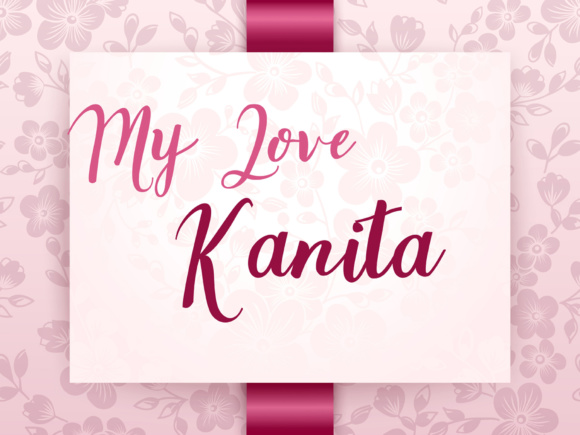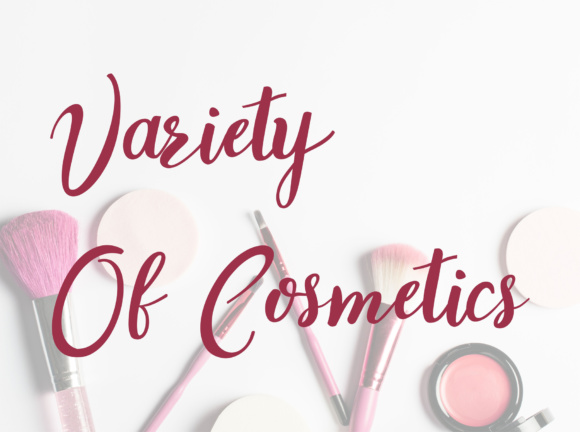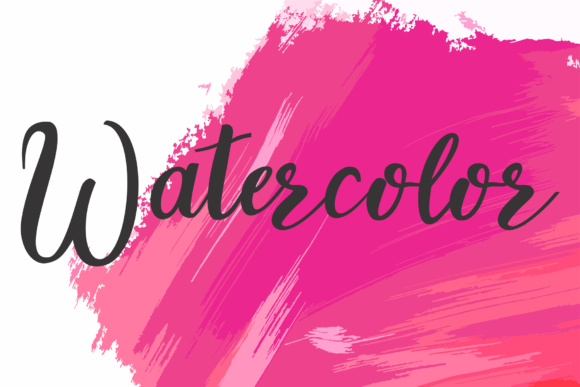
Introducing Estadia Font: The Perfect Addition to Your Romantic Designs
Are you a designer or crafter looking for a font that can add a touch of romance and femininity to your work? Look no further than Estadia Font. This beautiful script font is designed to bring a sense of elegance and whimsy to your designs, making it perfect for a wide range of projects.
What is Estadia Font?
Estadia Font is a swirly and beautiful script font that is sure to capture the hearts of designers and crafters alike. Its unique and flowing design makes it perfect for adding a romantic feel to any project. Whether you’re working on a wedding invitation, a branding campaign, or a craft project, Estadia Font is a great way to add a touch of femininity and charm.
Key Features of Estadia Font
- Swirly and beautiful design: Estadia Font features a unique and flowing design that is sure to add a touch of romance and elegance to your work.
- Feminine charm: This font is perfect for designers and crafters who want to add a touch of femininity to their projects.
- Suitable for a wide range of designs: Estadia Font can be used for a variety of projects, including wedding invitations, branding campaigns, craft projects, and more.
Uses for Estadia Font
Estadia Font is a versatile font that can be used for a wide range of projects. Here are a few ideas to get you started:
- Wedding invitations: Estadia Font is perfect for wedding invitations, adding a touch of romance and elegance to your design.
- Branding campaigns: This font is great for branding campaigns, particularly for businesses that want to add a touch of femininity and charm to their brand.
- Craft projects: Estadia Font is perfect for craft projects, such as scrapbooking, card making, and more.
- Social media graphics: This font can also be used to create social media graphics, such as Instagram posts and Facebook graphics.
Tips for Using Estadia Font
Here are a few tips for using Estadia Font in your designs:
- Use it as a headline font: Estadia Font is perfect for use as a headline font, adding a touch of elegance and sophistication to your design.
- Pair it with a sans serif font: Pairing Estadia Font with a sans serif font can create a beautiful contrast and add visual interest to your design.
- Experiment with different colors: Estadia Font looks great in a variety of colors, so don’t be afraid to experiment and find the perfect color for your design.
| Font Name | Estadia Font |
| Author | ed.creative |
Estadia Font is a beautiful and versatile font that is perfect for designers and crafters who want to add a touch of romance and femininity to their work. With its swirly and beautiful design, Estadia Font is sure to capture the hearts of anyone who sees it. Whether you’re working on a wedding invitation, a branding campaign, or a craft project, Estadia Font is a great way to add a touch of elegance and charm.
Overall, Estadia Font is a great addition to any design project. Its unique and flowing design makes it perfect for adding a touch of romance and elegance to your work. So why not give it a try and see how it can enhance your designs?